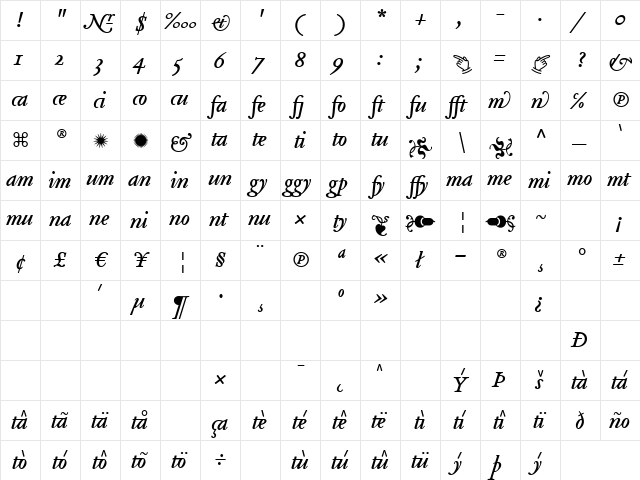
Tribute ItalicLigTwo
Design Context for Tribute Typeface
Tribute takes a measured approach to typography — its balanced proportions and neutral character make it a reliable workhorse for both digital and print work. The slanted form adds forward momentum and visual energy.
Pro Tip: Use Tribute for emphasis, pull quotes, and subheadings where its slanted energy can add rhythm to the layout.